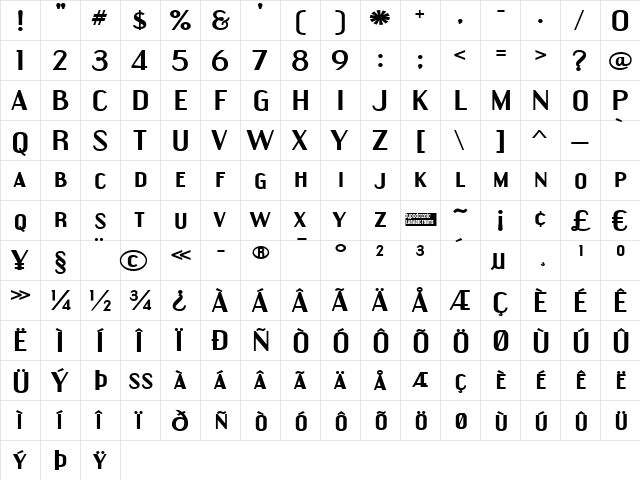
Engebrechtre Expanded Bold
Design Context for Engebrechtre Expanded Typeface
Engebrechtre Expanded offers clean, dependable letterforms without strong stylistic allegiance, making it a practical choice for designers who need flexibility. The heavy weight commands attention and anchors typographic hierarchies.